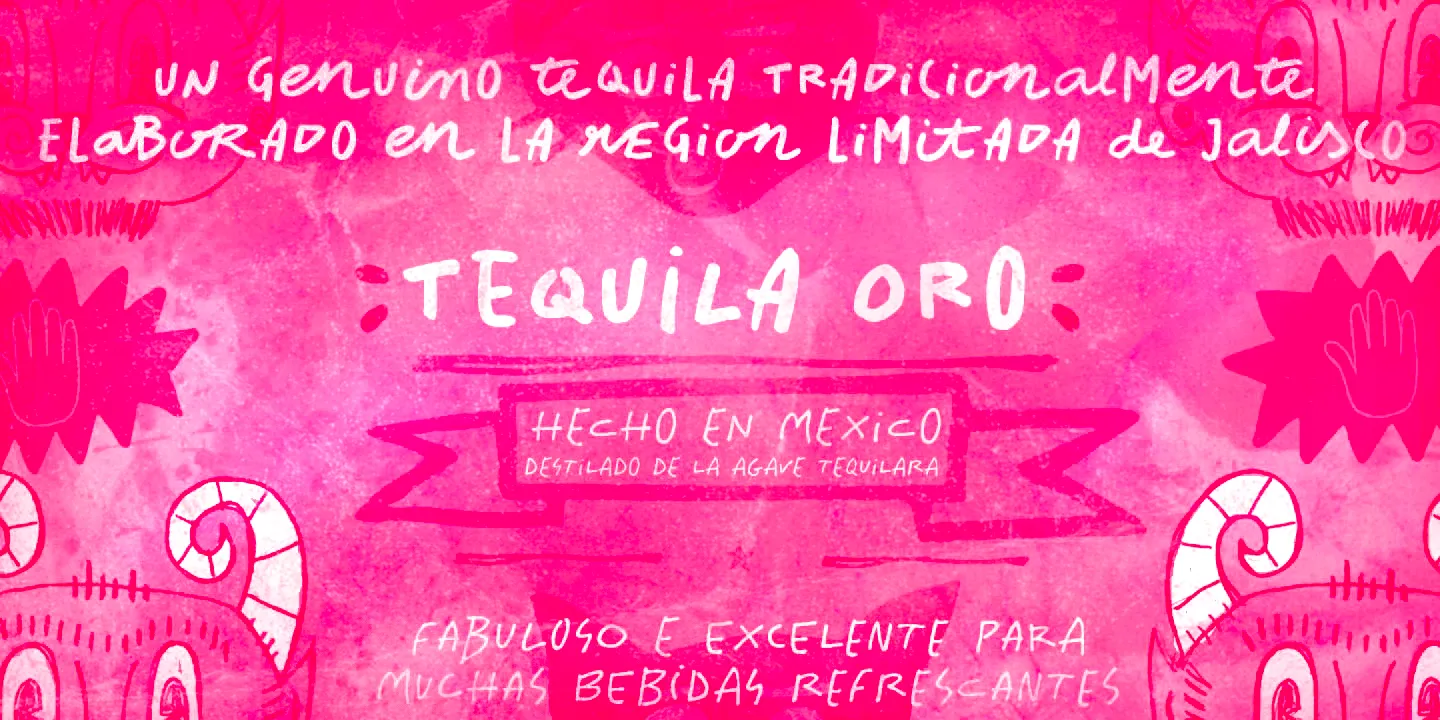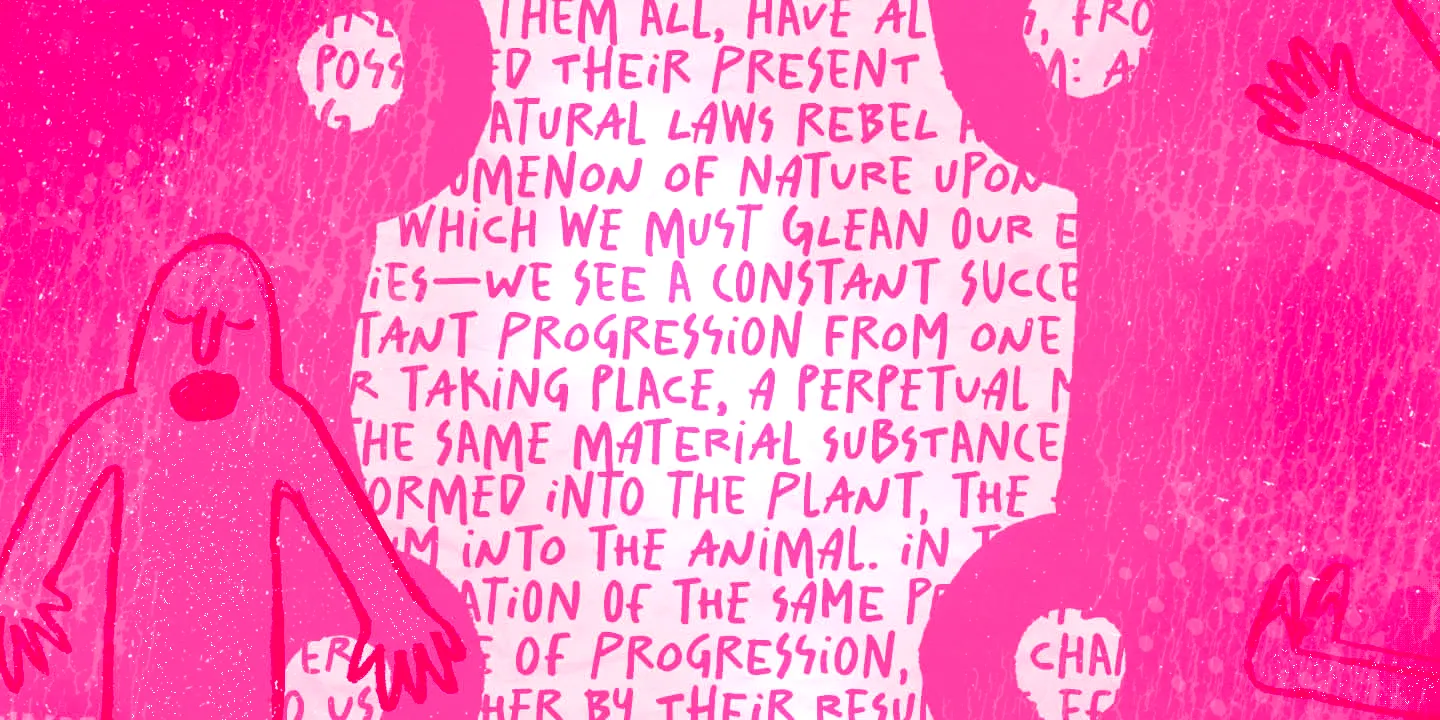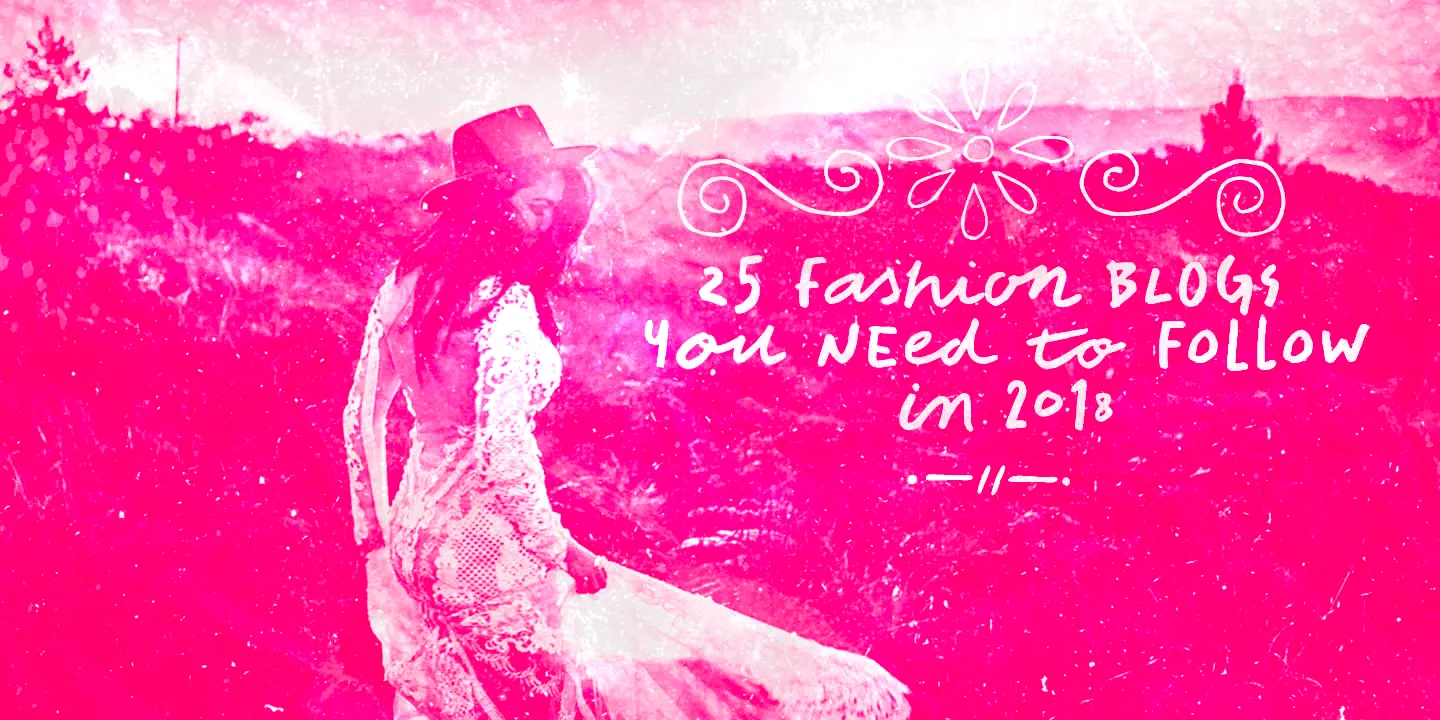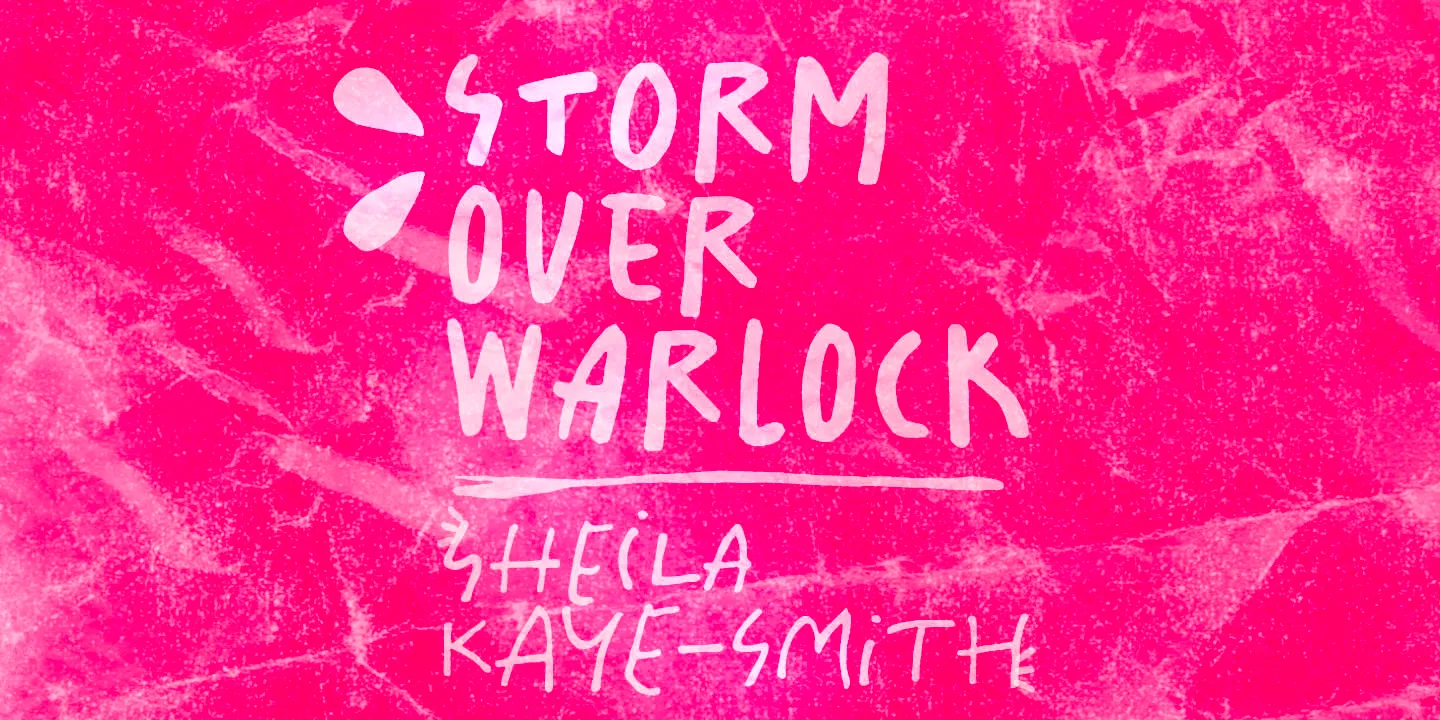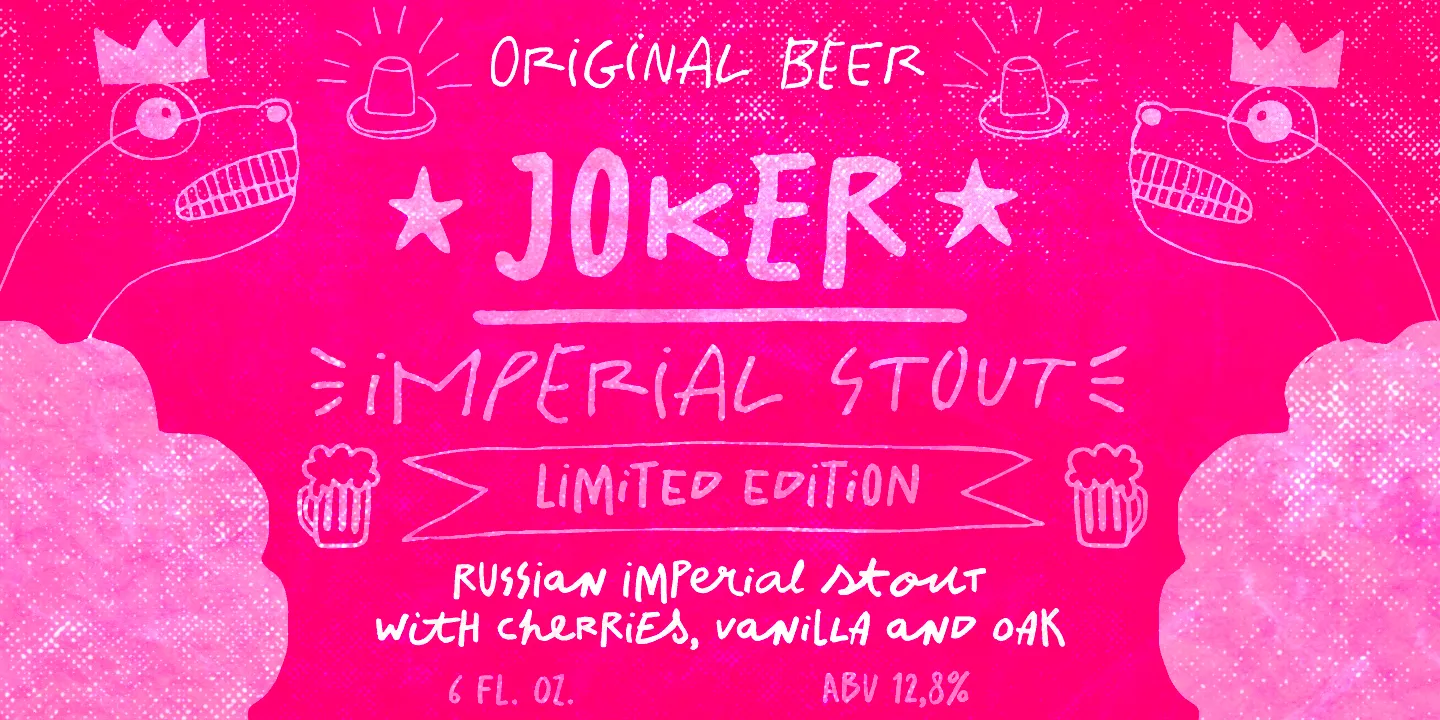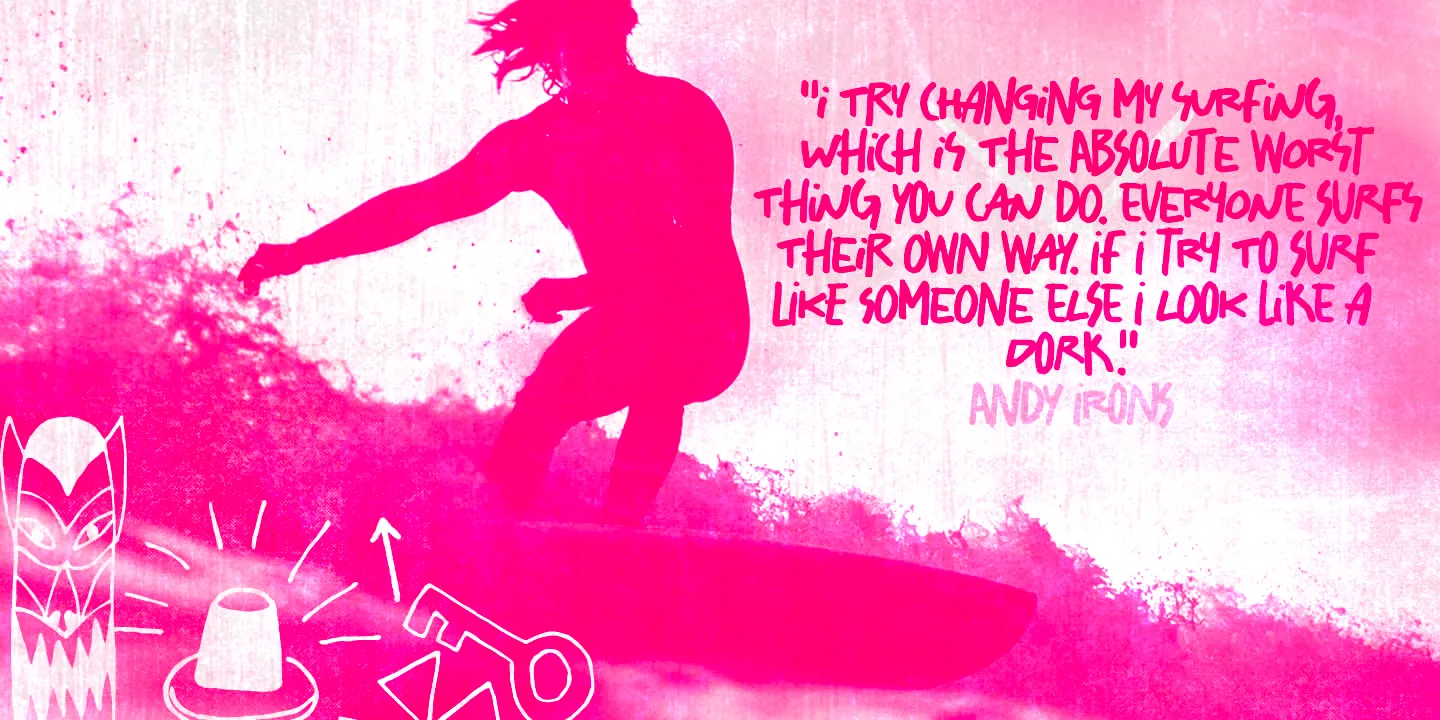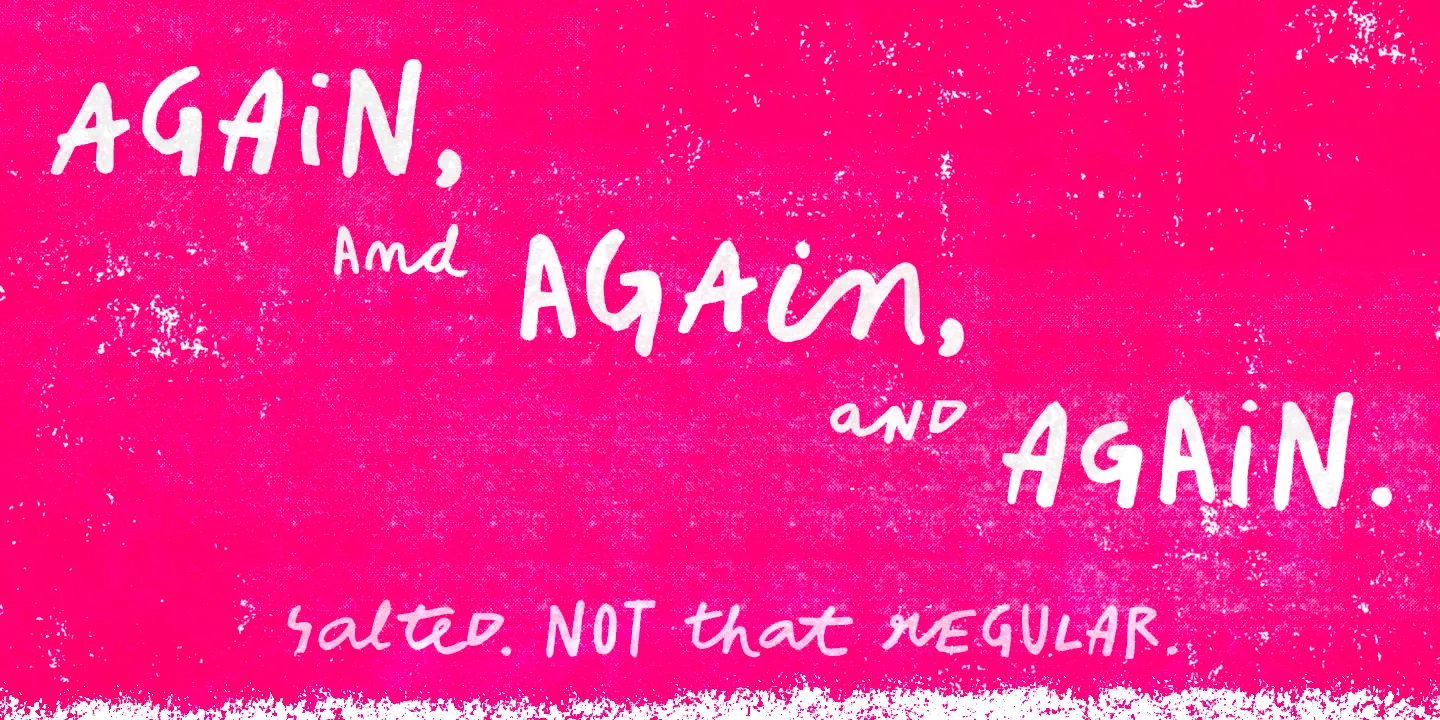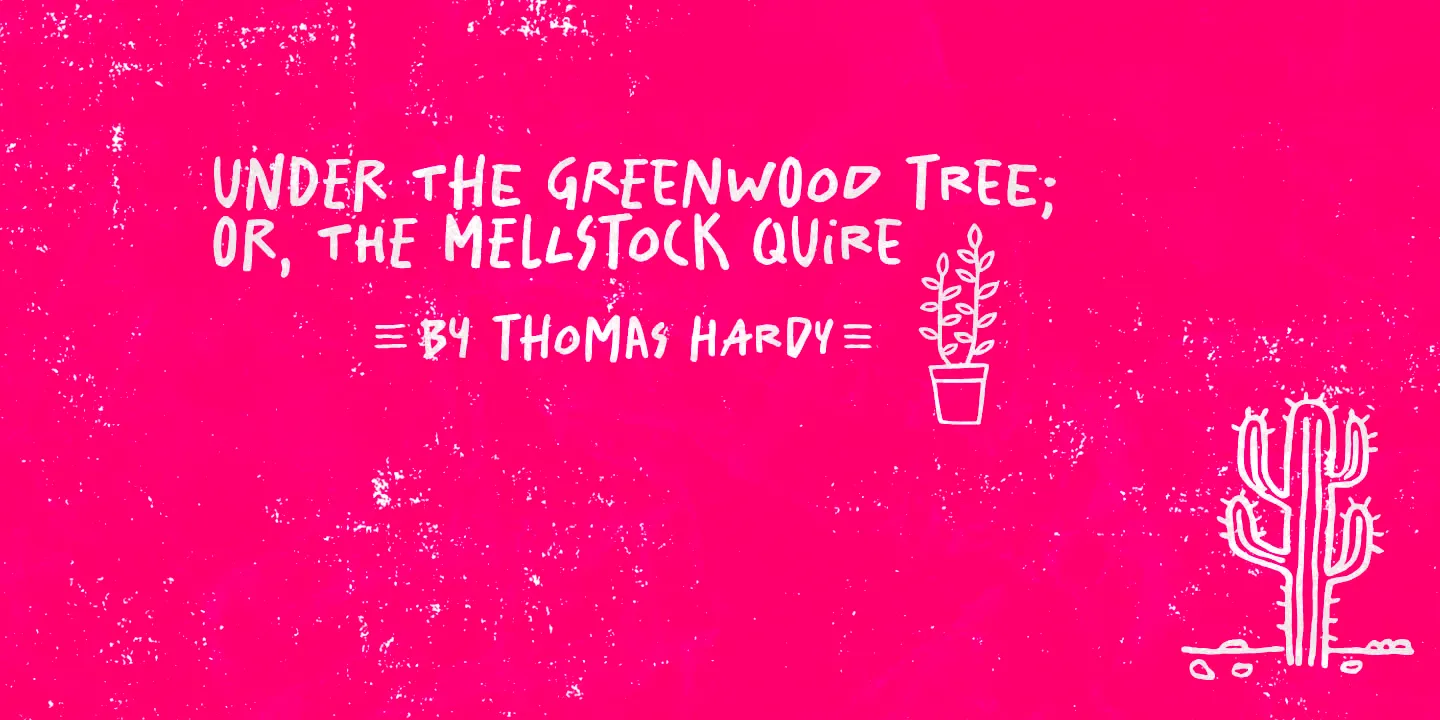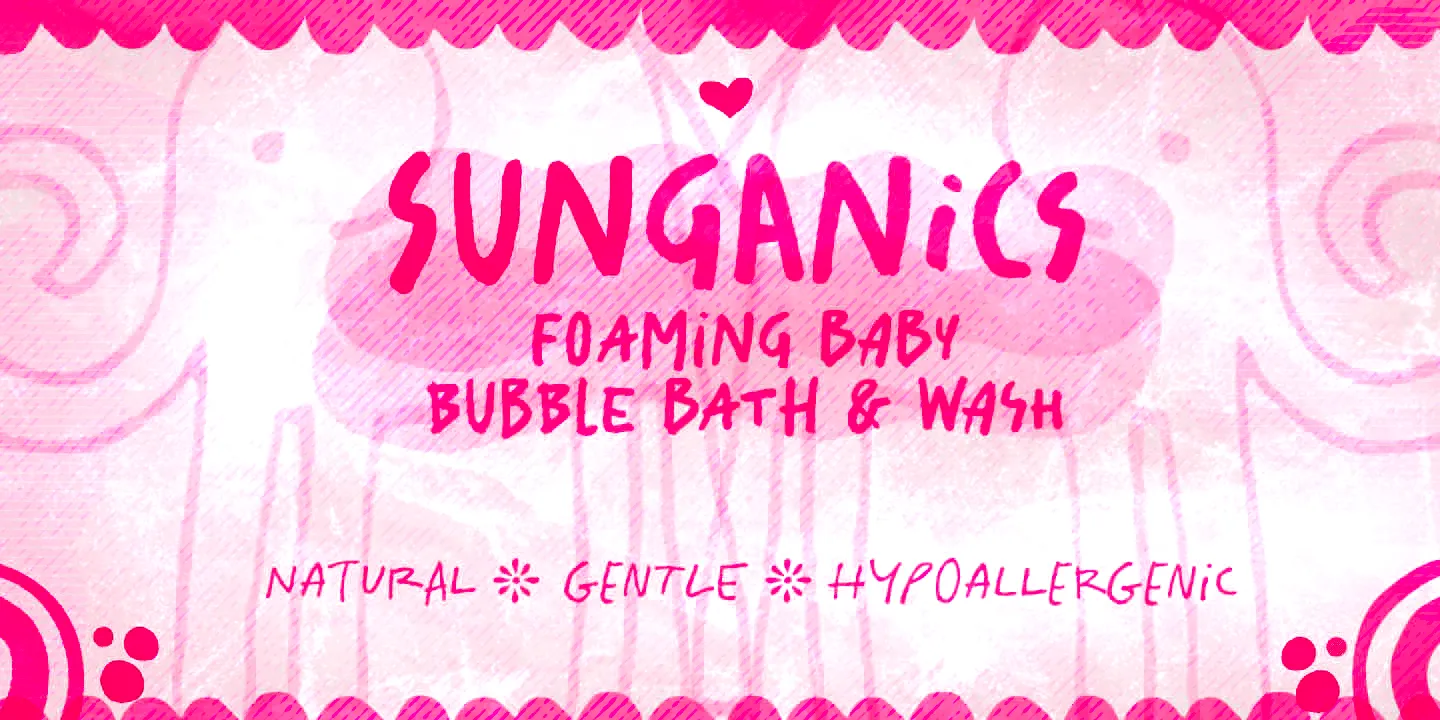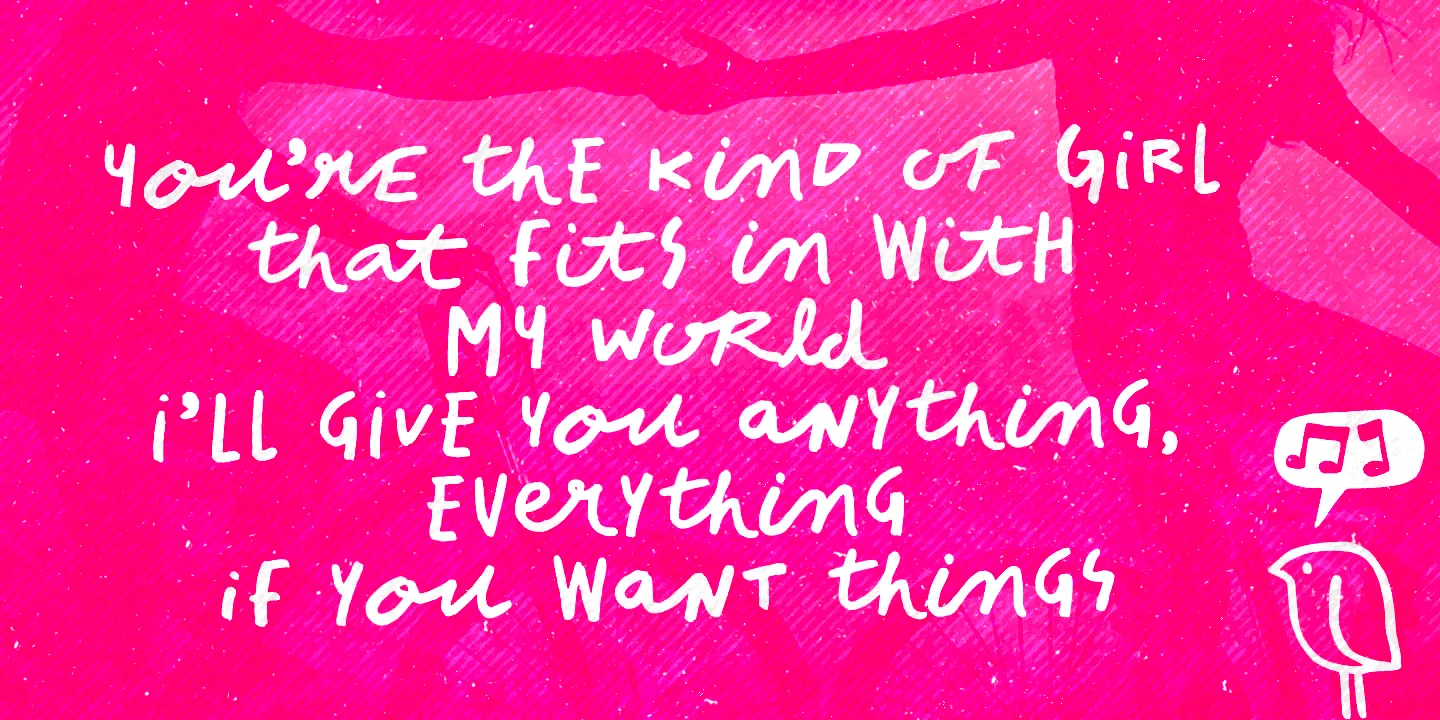
Salted Font Family
• Salted Sweet
• Salted Pieces
• Salted Regular
Salted
Salted is a spontaneous and expressive handwritten font family. Inspired by casual handwriting with a playful twist, it comes in three distinct styles. Deliberately free-spirited, Salted Regular has alternates that transform the font mood entirely, adding touches to the cursive script and creating a wild and fantastic feel. Salted Sweet has alternates, too, and is way more even-tempered than its playmate. Perfect for crafting friendly branding, heartfelt greeting cards, or child-like books.